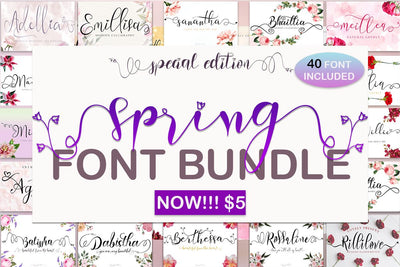
Spring Font Bundle
This set includes 40 beautiful and popular fonts !!!
Special Script/Lovely:
Betharia
Vienetta
Selvia Cahya
Agatha
The Brilliant
With Danilla
Sanantha
Maretha
Pretty Willie
Queenatha
Mikella
Bialletha
Adellia
Madelline
Khalitha
Shalitta
Meillea
Alletha
Sherllia
Rossaline
Rillilove
Beathria
Astherlia
Berthessa
Billetha
Dabistha
Balissha
Roshalia
Bhaillia
Dhefentha
Qanethya
Emillisa
Hello Valentine
Amantha
Bethlove
Shamilove
With Rose
Christmas Delight
This bundle is perfect for a variety of projects such as weddings, designs, branding, logos, invitations, stationery, social media posts, advertisements, product packaging, product designs, labels, photography, valentine, easter, mother day, father day, christmas, watermarks, special events or whatever.